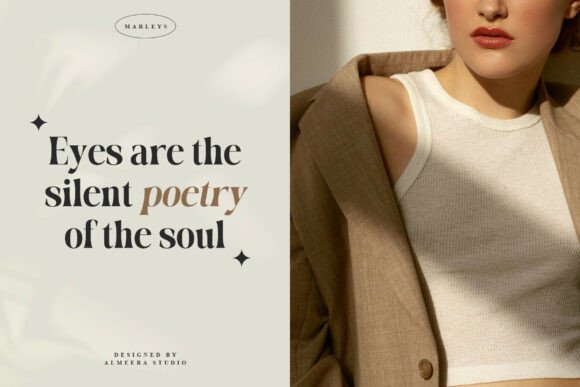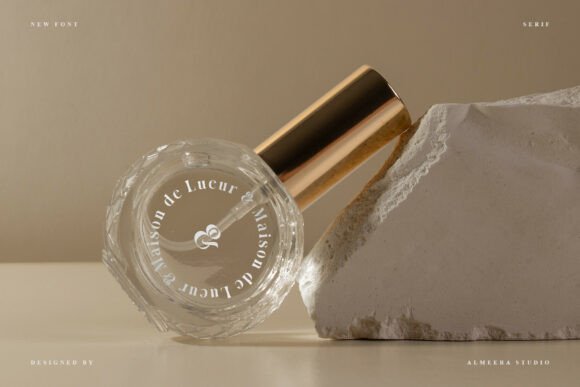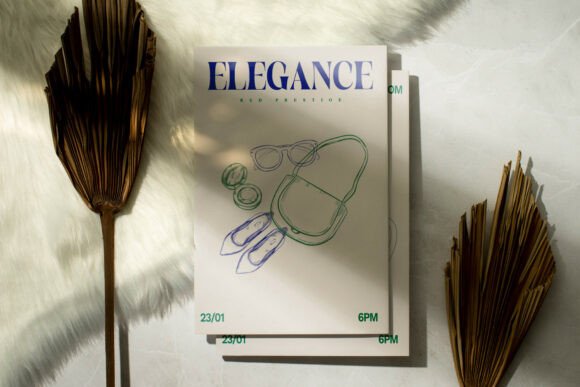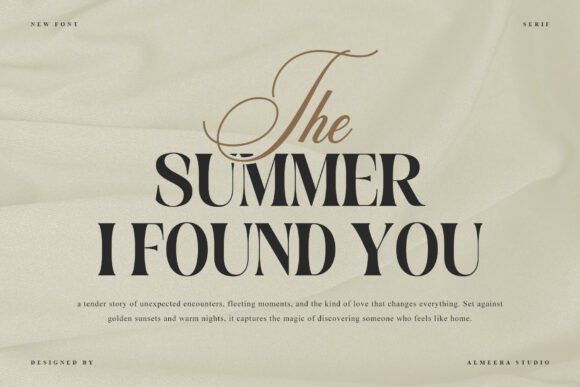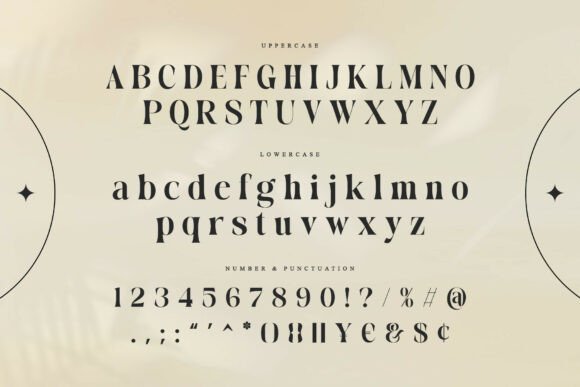
Introduction to Marleys Font
Marleys is a modern serif font that blends classic character with contemporary design.
| 👤 Author | Almeera Studio |
Its balanced details and stylish serifs make it a strong choice for branding, magazines, wedding invitations, packaging, and logos Marleys creates harmony between tradition and modern aesthetics, delivering a polished and distinctive look.
Key Features of Marleys Font
Why Choose Marleys Font?